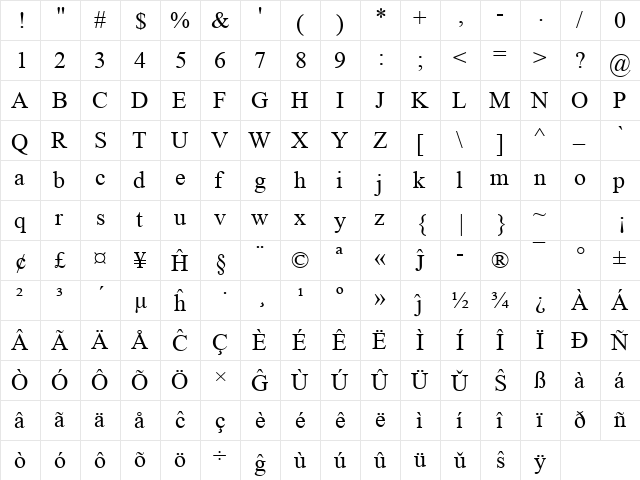
Times New Roman Eo Regular
Design Context for Times New Roman Eo Typeface
Times New Roman Eo takes a measured approach to typography — its balanced proportions and neutral character make it a reliable workhorse for both digital and print work.